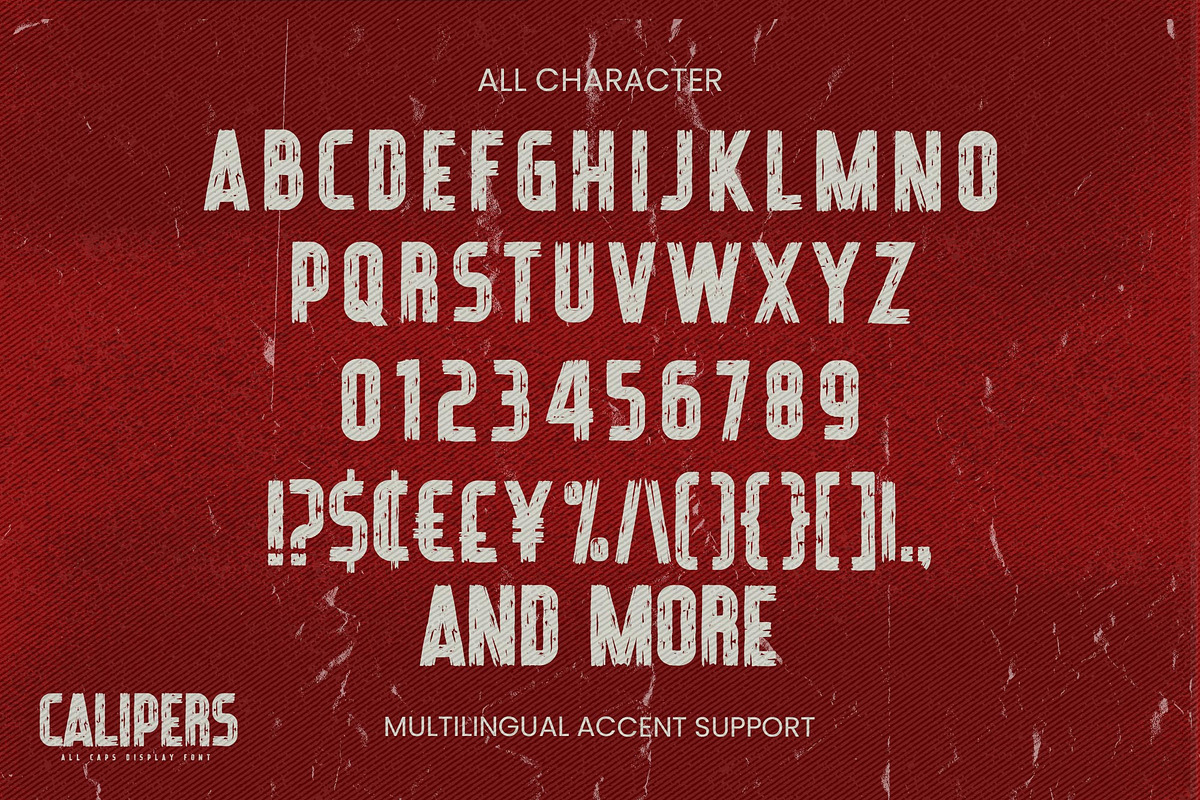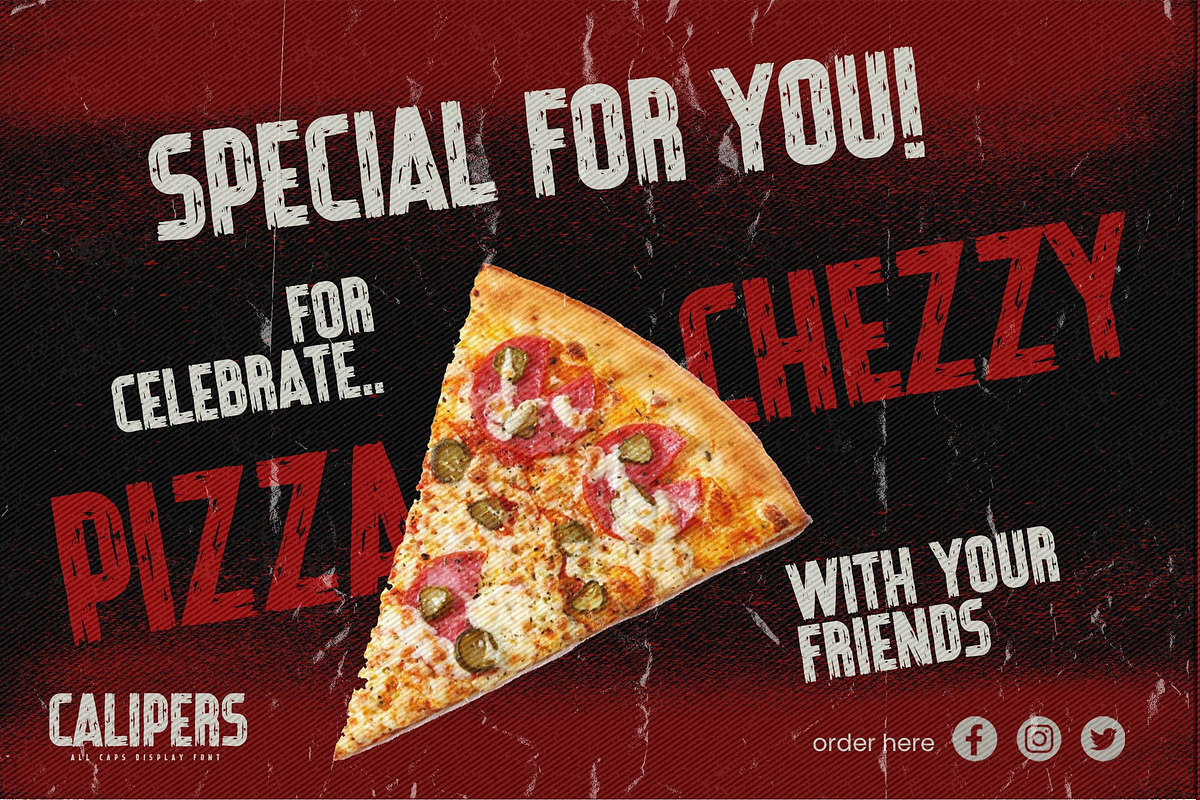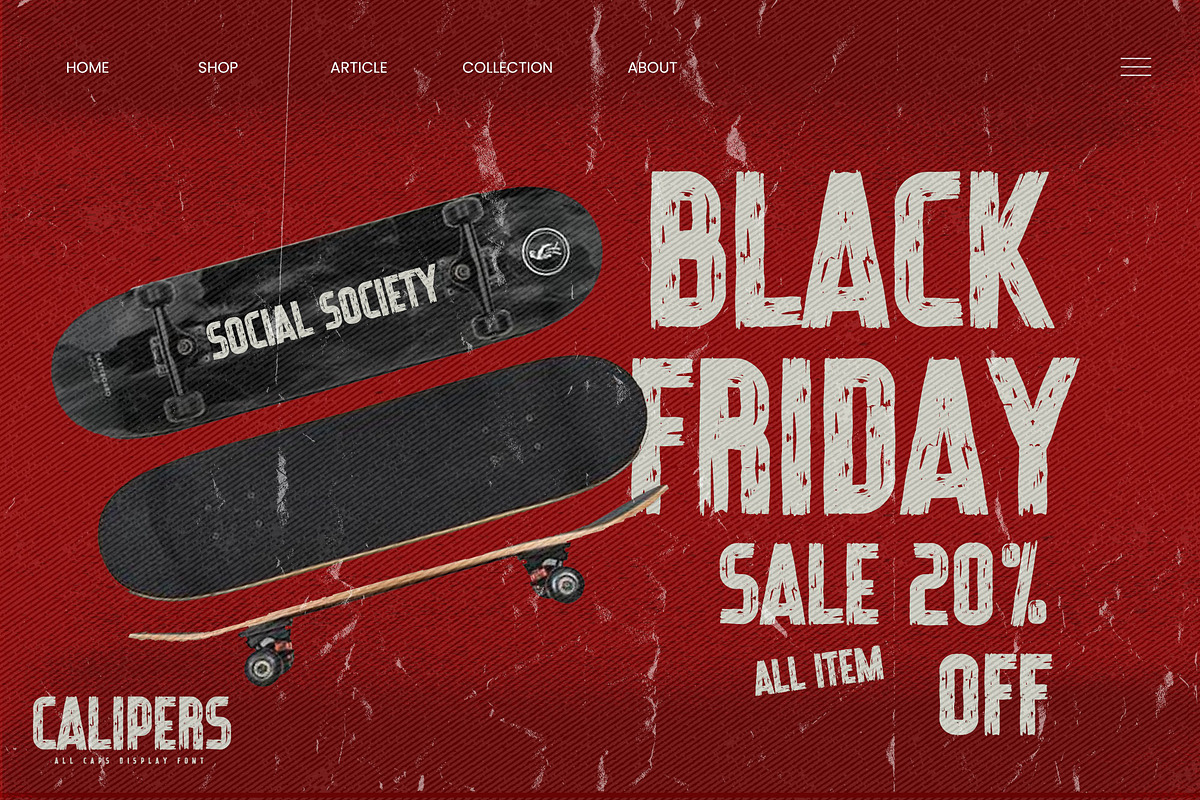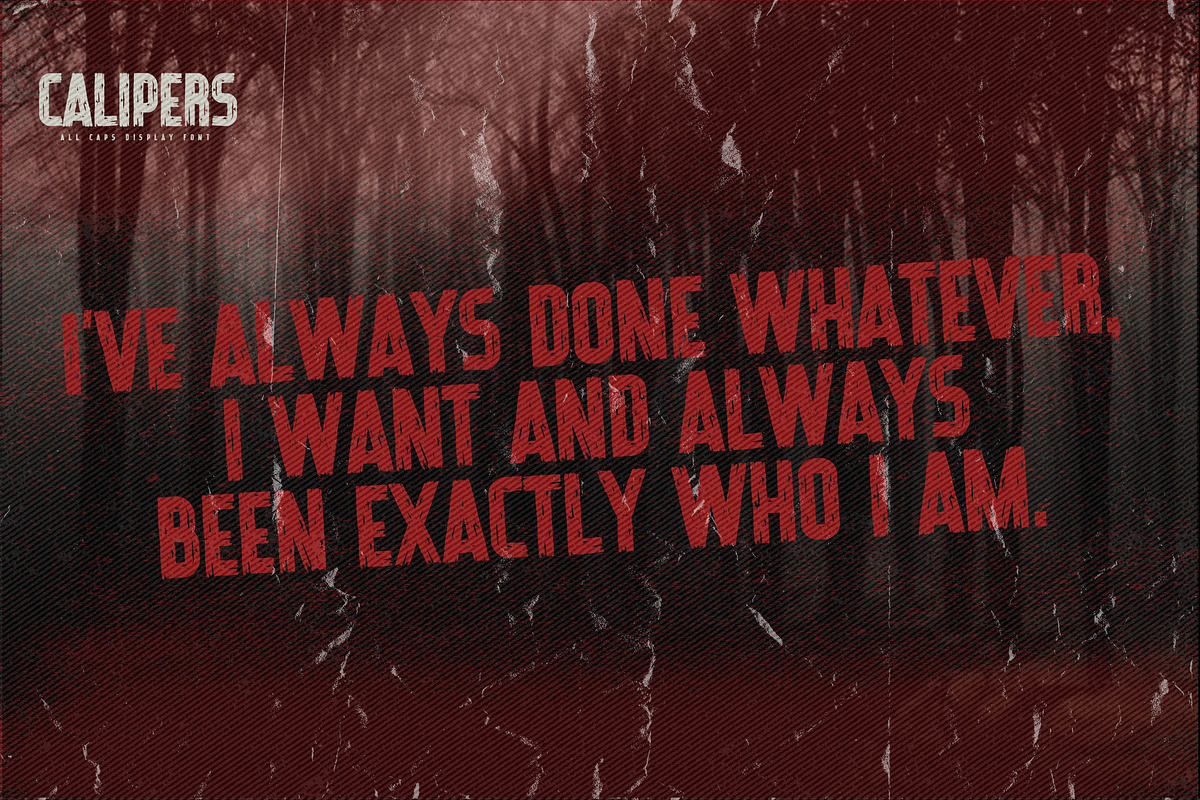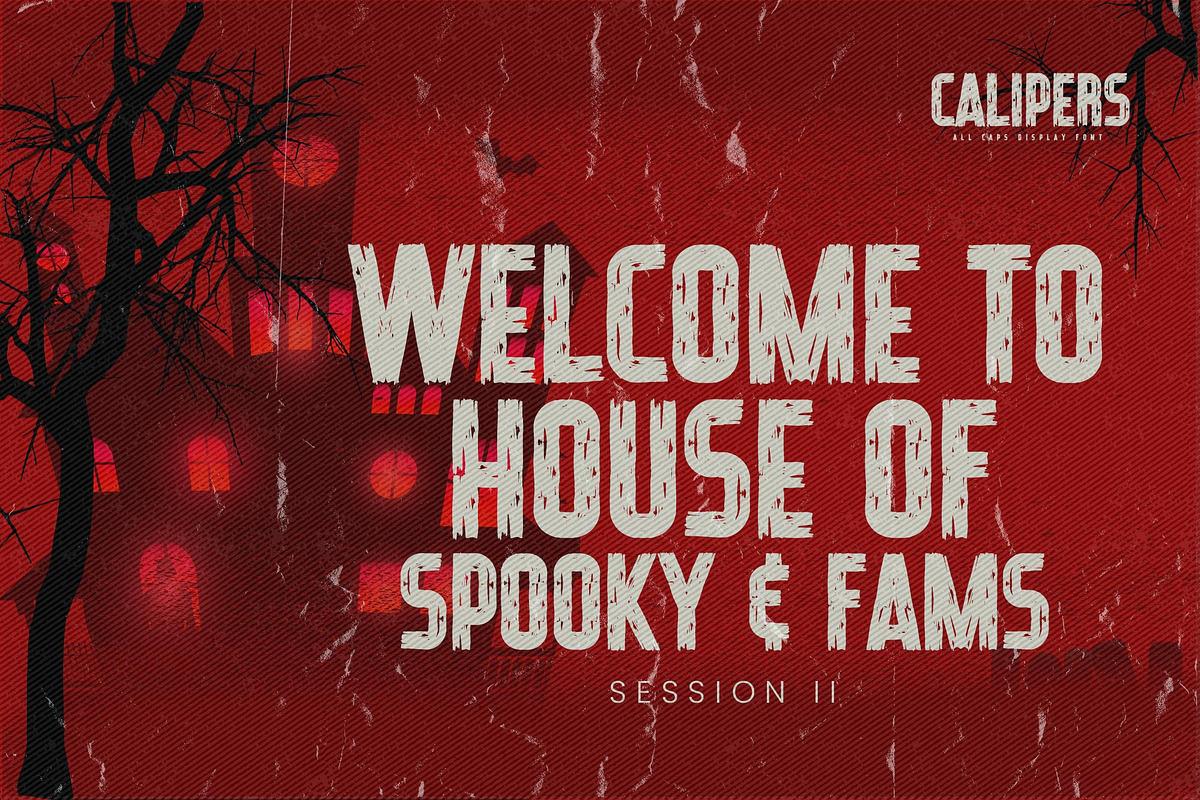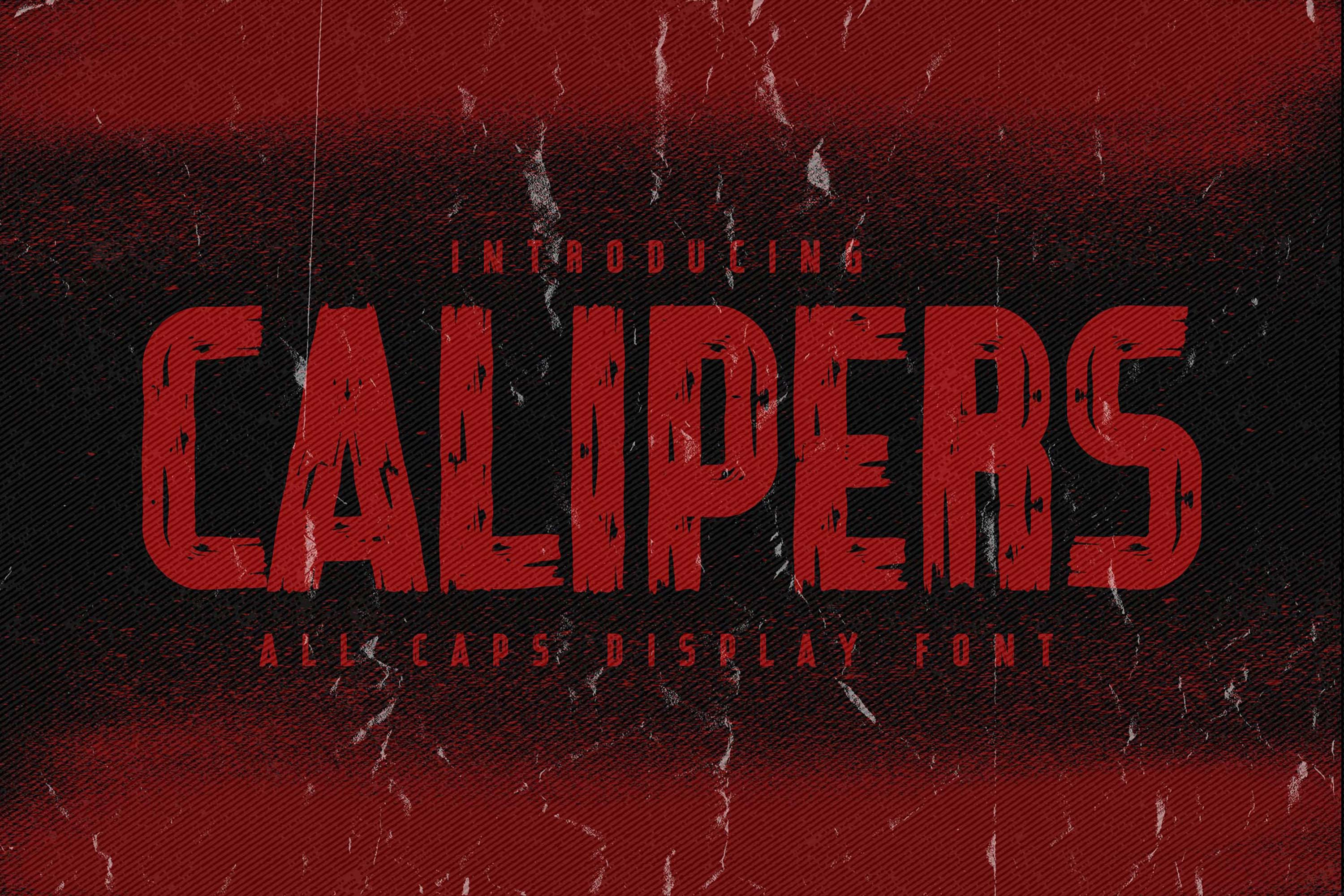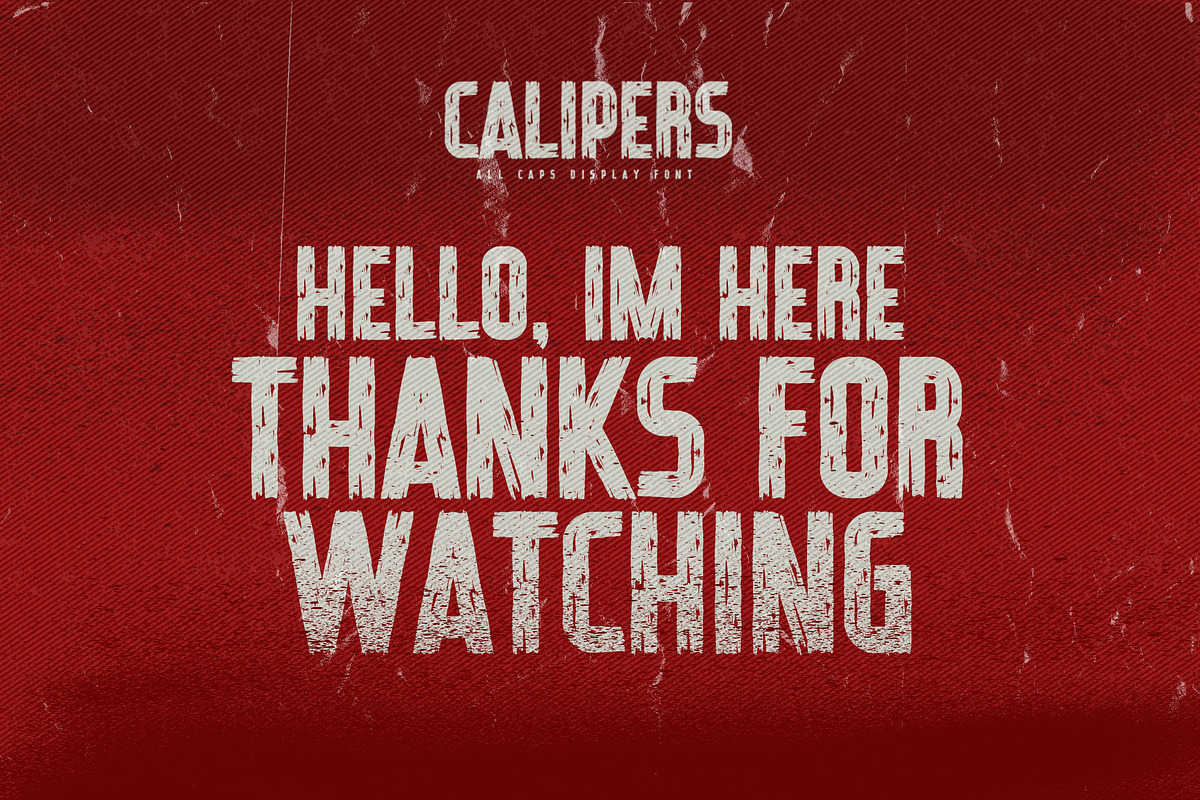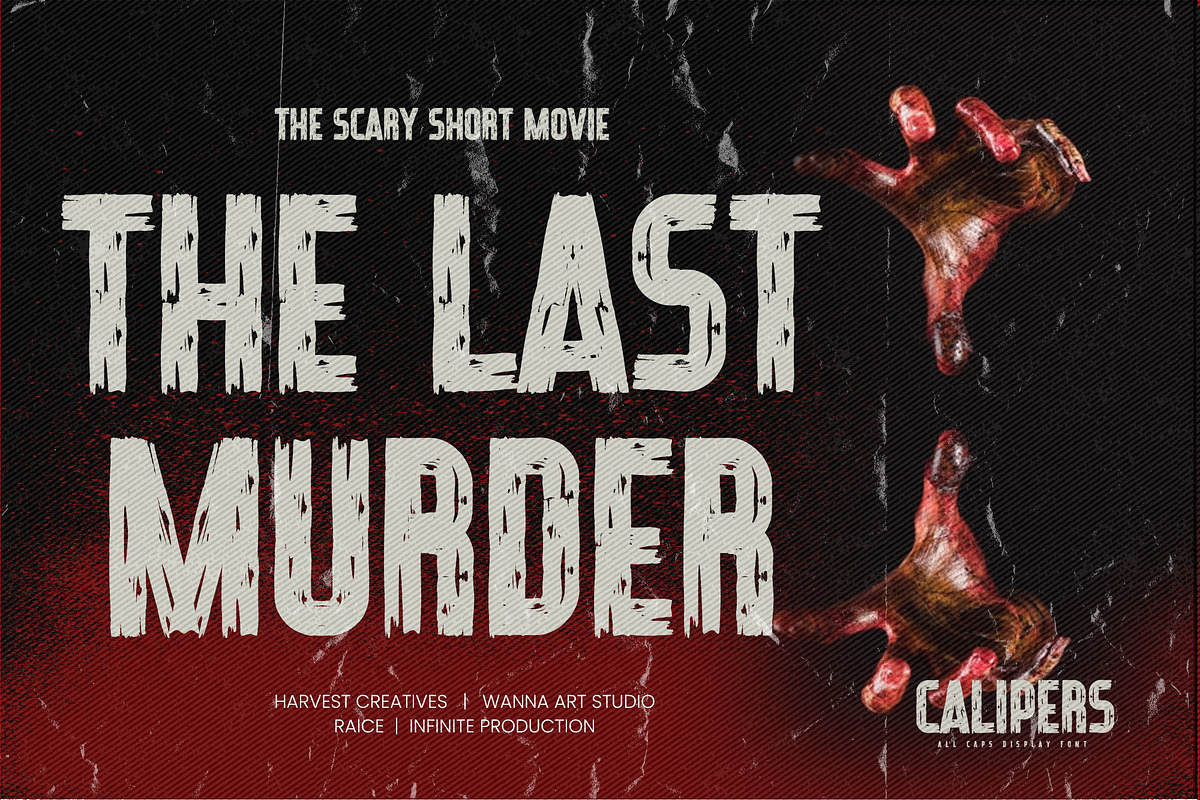
CALIPERS - All Caps Display Font
Here comes our nw font CALIPERS this is a All Caps Display Font that is written casually and quickly.This is a Strong Style and classy style this font are handmade with brushes on Procreate. Then crafted carefully drawn into vector format.this font is great for your creative projects such as watermark on photography, and perfect for logos & branding, photography, invitation, watermark,advertisements,product designs, stationery, wedding designs,label ,product packaging, special events or anything that need handwritting taste.
CALIPERS a natural handwritten feel. This handmade font will make your design has a beautiful natural touch for each details. It is perfect for any design project as Invitation,logo, book cover, craft or any design purposes.
That is why CALIPERS is strong characteristic more natural look to your text with a more modern look to your text.